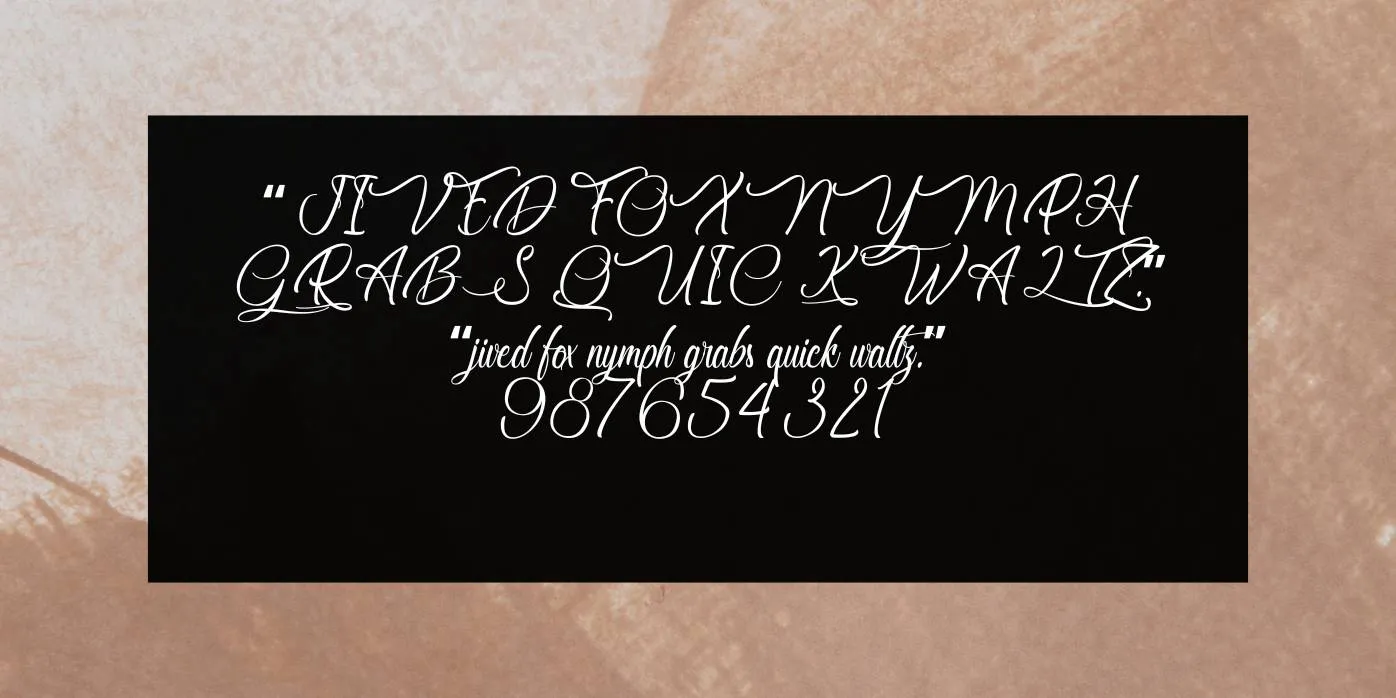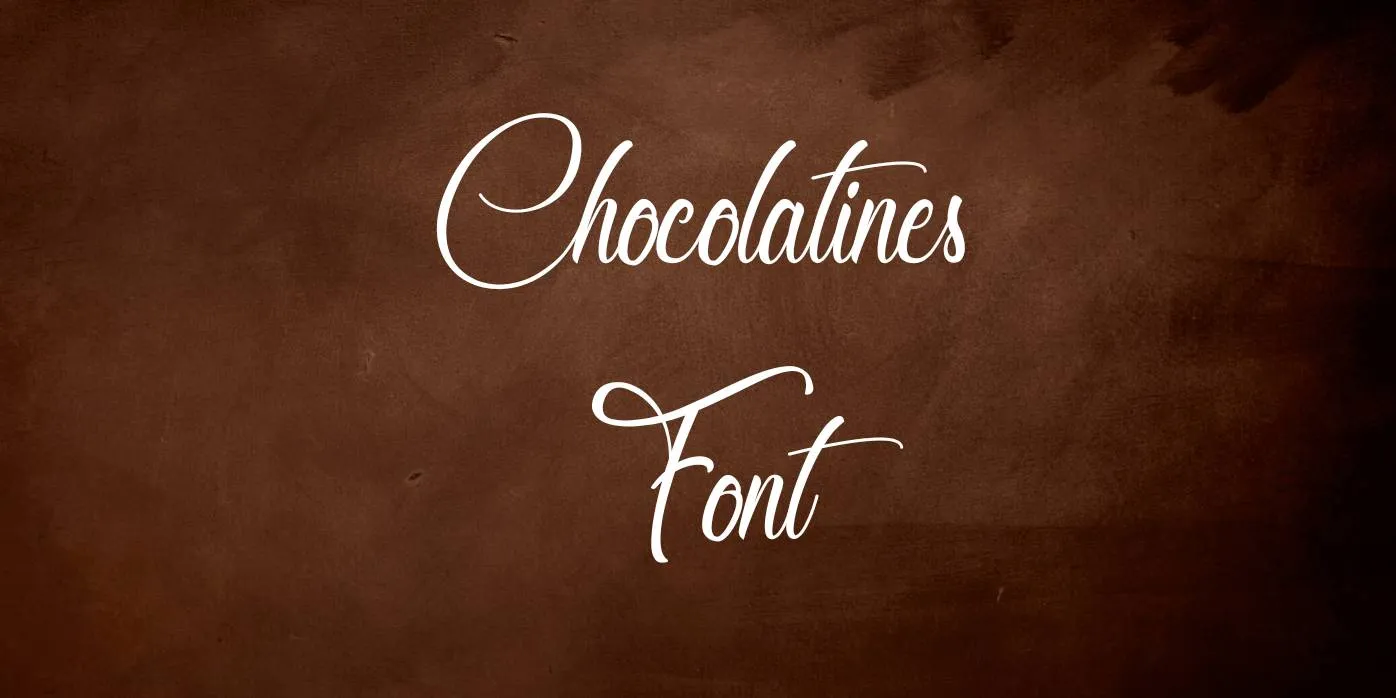
Chocolatines Font
Chocolatines Font is a handwritten type of font. The characters of this typeface are stylish and cool. Octotype is the designer of this texture. There are 143 unique glyphs for this amazing type of font.
The characters of this texture support numbers, capital letters, and small letters. They also support all special letters except dots and commas. This typeface was developed in 2018. This texture is available in both OTF( OpenType font ) and TTF ( TrueType font ) file format.